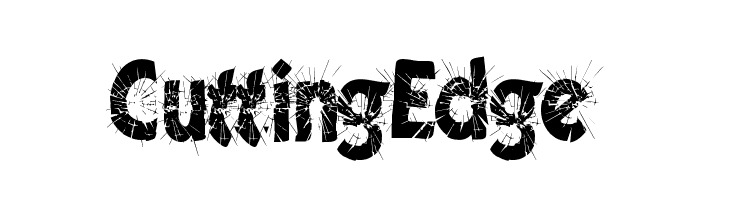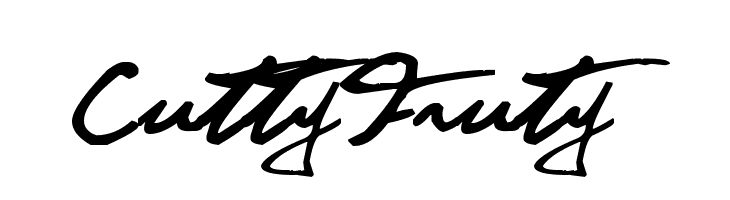
An elegant script font with flowing, ornate characters and sophisticated swashes.
A refined script font with elegant, flowing cursive letterforms.
A bold, fragmented font with high contrast and sharp, irregular shapes.
A dynamic and flowing script font with elegant, cursive letterforms.
A bold, cursive font with elegant, flowing characters.
A dynamic, expressive handwritten font with fluid strokes and artistic flair.
A raw, edgy font with sharp, claw-like strokes and a chaotic, rebellious style.
A playful, handwritten font with a casual and friendly style.
A playful, handwritten font with a friendly and whimsical style.